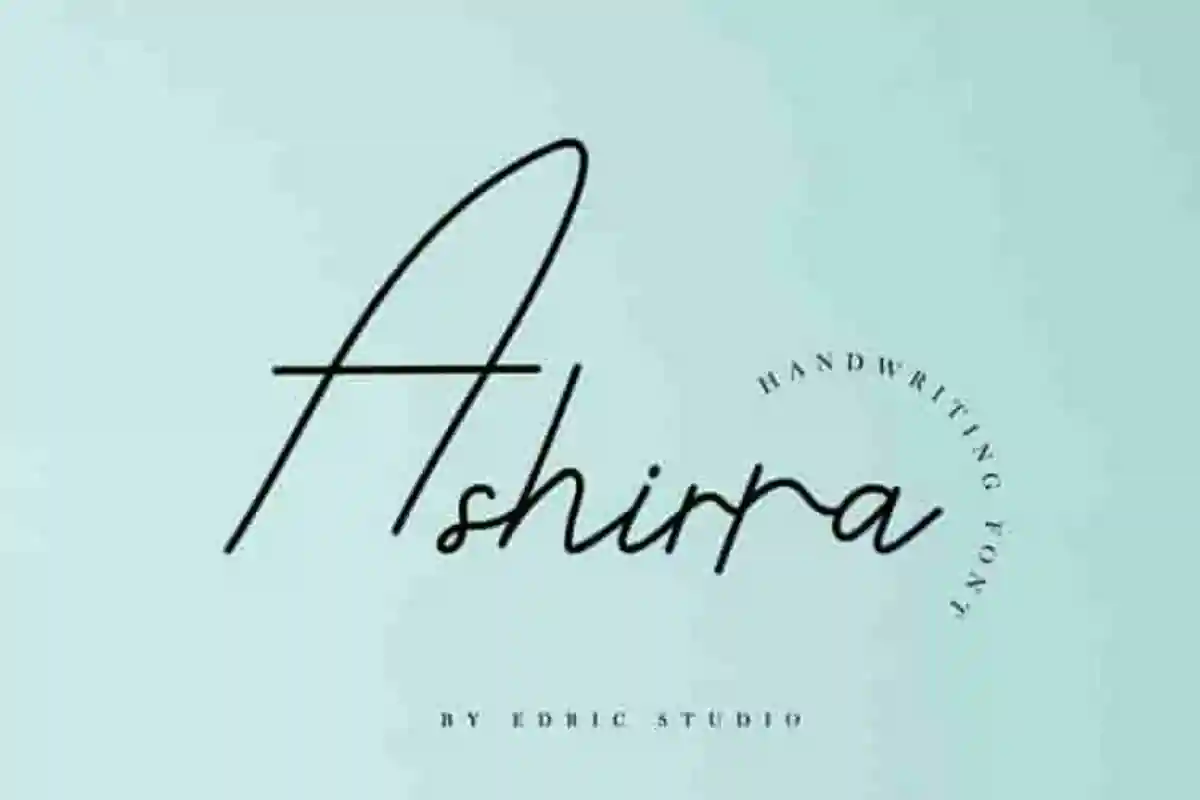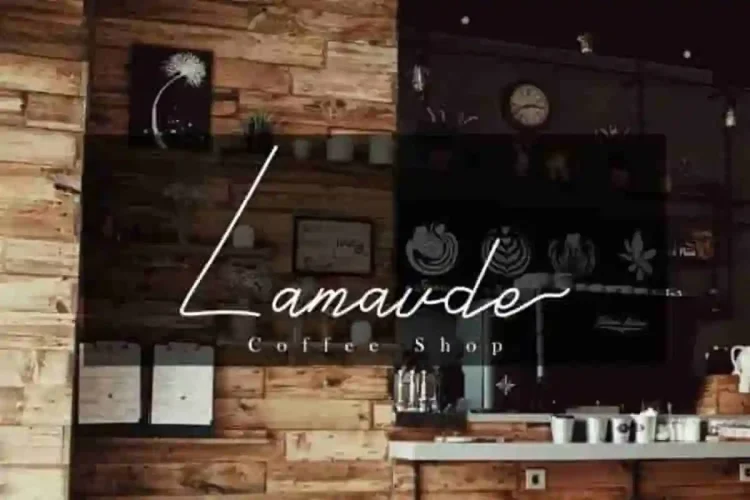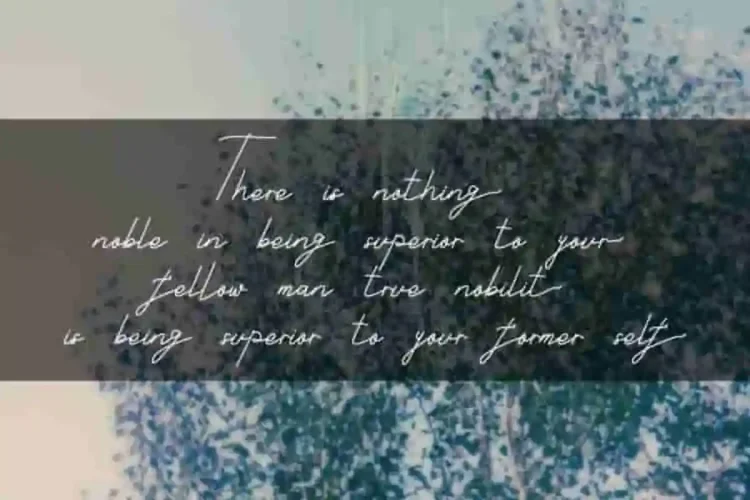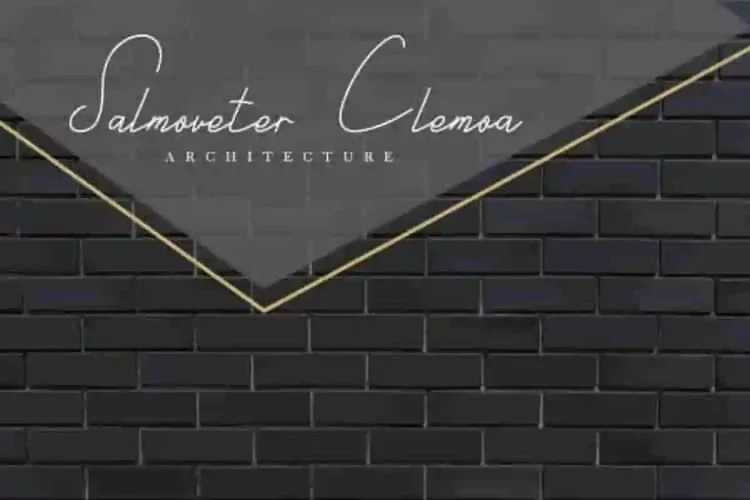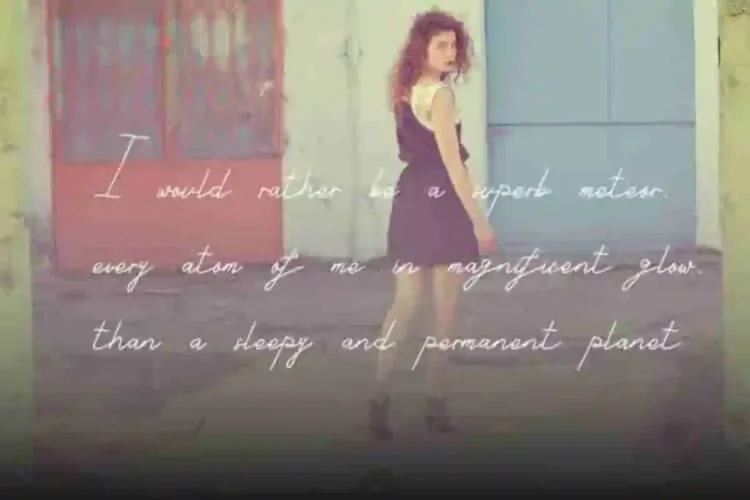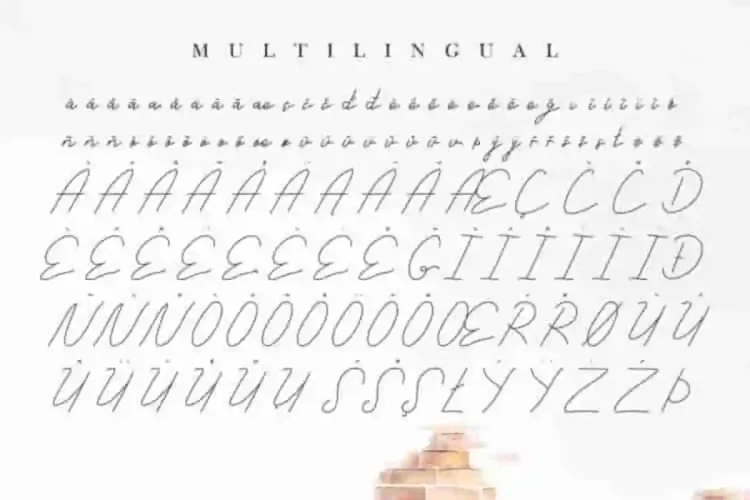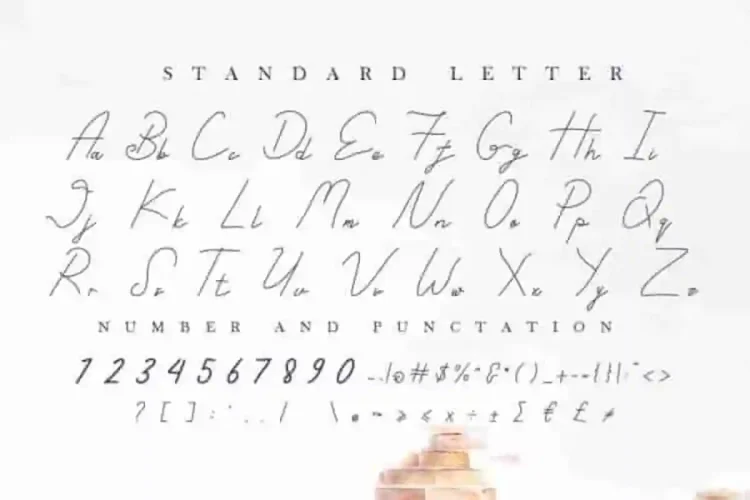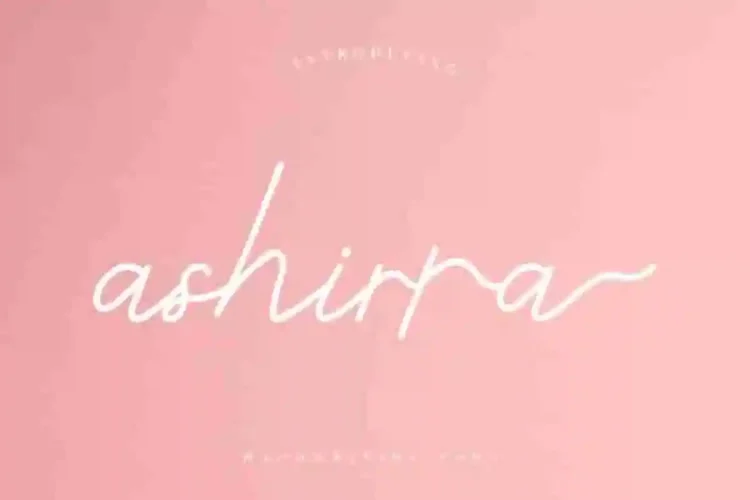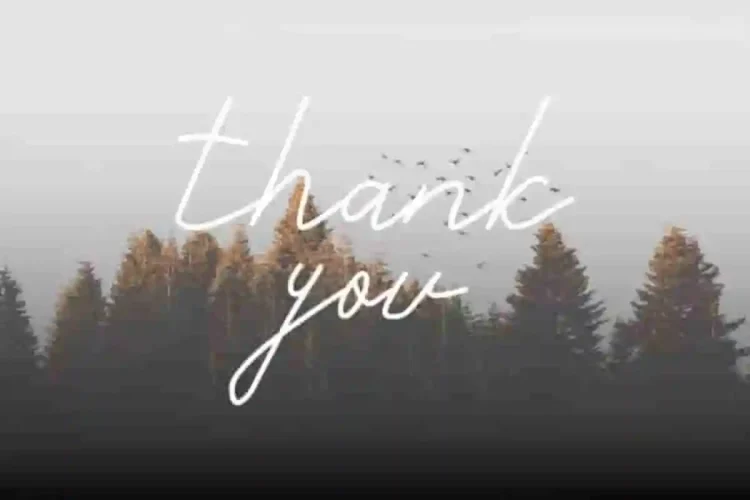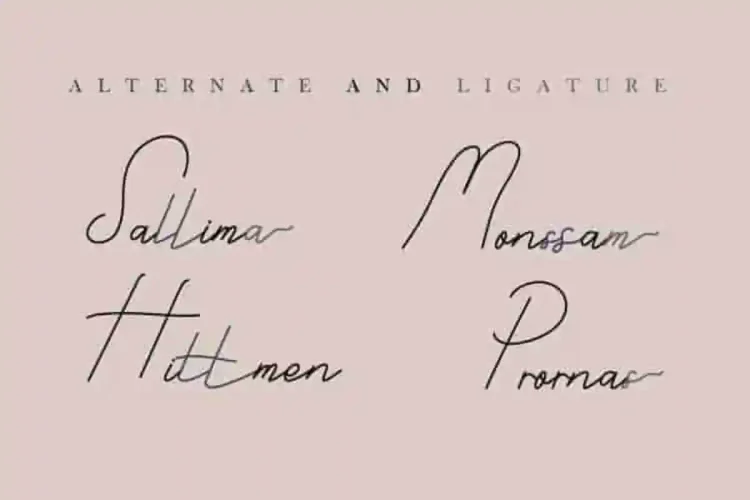
Ashirra Handwritting Font
Please meet our new handwriting calligraphy font : Ashirra
Ashirra Handwriting is a simple light font script. It has most of international language characters glyphs.
Ashirra Handwriting Font can be used and suitable for most industry, category or professionals : fashion, beauty products, musician, finance, lawyer, photographer, architect etc.  You can use this typeface for any projects (with extended license) : logo, branding, cover, banner, social media, magazine, product label, tag, etc